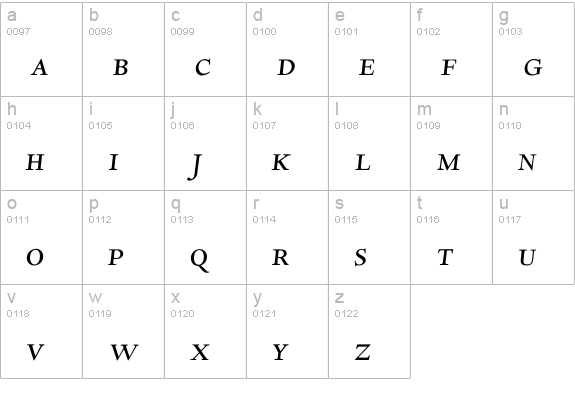
DeepdeneH-SC-Italic is a distinctive, italic variant in the DeepdeneH typeface family \xE2\x80\x94 well suited to design and typography projects.
DeepdeneH-SC-Italic is a sophisticated and elegant font that exudes a sense of style and professionalism. Its sleek and slender italicized design adds a touch of flair to any text, making it perfect for use in headings, titles, and other design projects that require a touch of sophistication. This font is versatile and can be used in a variety of contexts, from print materials to digital designs. The best part? DeepdeneH-SC-Italic is available for free download at FontsMarket.com. You can easily add this stunning font to your collection without breaking the bank. Don't miss out on the opportunity to enhance your designs with this exquisite typeface. Download DeepdeneH-SC-Italic today and take your projects to the next level!